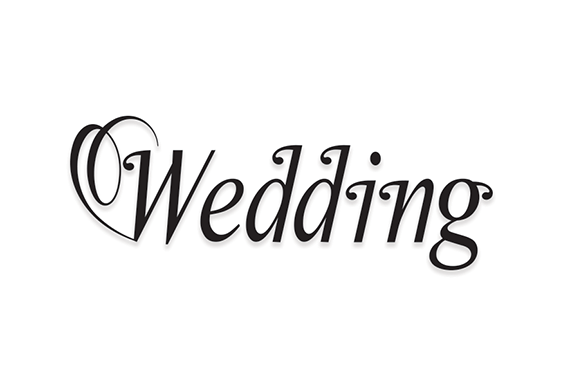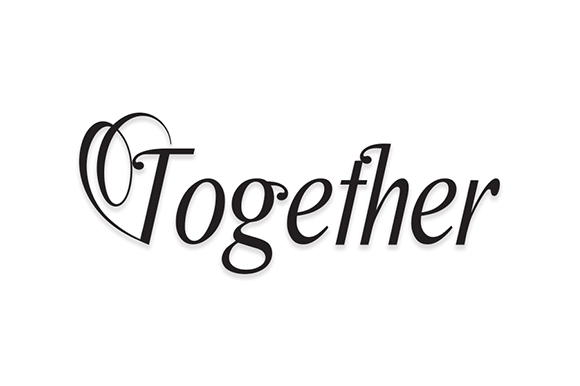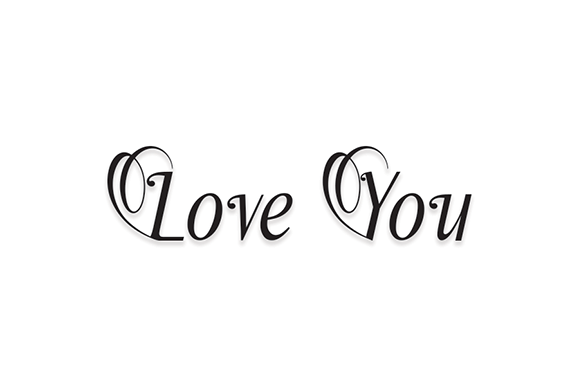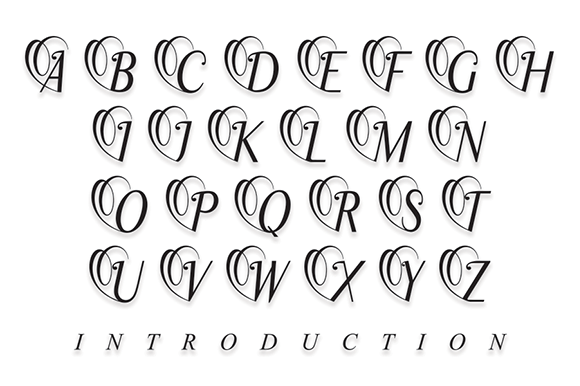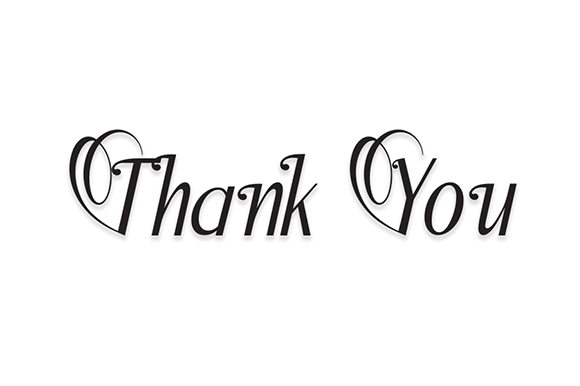
Introducing Balfa Hode Font: The Ultimate Choice for Romantic and Whimsical Designs
Are you a designer or crafter looking for a font that can add a touch of romance and elegance to your projects? Look no further than Balfa Hode Font! This original and cute handwritten font is perfect for creating stunning wedding invitations, stationery, branding, and more. With its gorgeous swashes and whimsical feel, Balfa Hode is sure to make your designs stand out from the crowd.
What Makes Balfa Hode Font So Special?
Balfa Hode Font is a unique and creative typeface that is designed to bring a touch of romance and sophistication to your designs. Here are just a few features that make it so special:
- Handwritten with love: Balfa Hode is a handwritten font that is crafted with love and care. Its unique and organic feel makes it perfect for designs that require a personal touch.
- Gorgeous swashes: This font features beautiful swashes that can be used to add a decorative touch to your designs. From wedding invitations to branding, these swashes are sure to make your projects look stunning.
- Perfect for romantic designs: Whether you’re creating wedding invitations, stationery, or branding for a romantic business, Balfa Hode is the perfect choice. Its whimsical feel and elegant swashes make it ideal for designs that require a touch of romance.
How to Use Balfa Hode Font in Your Designs
Balfa Hode Font is incredibly versatile and can be used in a variety of design projects. Here are just a few ideas to get you started:
- Wedding invitations: Create stunning wedding invitations that will leave a lasting impression on your guests. Use Balfa Hode to add a romantic touch to your designs.
- Stationery: From business cards to letterheads, Balfa Hode is perfect for creating elegant and sophisticated stationery.
- Branding: Use Balfa Hode to create a unique and memorable brand identity for your business. Its whimsical feel and elegant swashes make it perfect for businesses that require a touch of romance.
- DIY projects: Whether you’re creating handmade cards, gift tags, or other DIY projects, Balfa Hode is a great choice. Its unique and organic feel makes it perfect for crafts that require a personal touch.
Tips for Getting the Most Out of Balfa Hode Font
Here are a few tips for getting the most out of Balfa Hode Font:
- Experiment with swashes: Don’t be afraid to experiment with the swashes in Balfa Hode. They can be used to add a decorative touch to your designs and create a unique look.
- Mix and match: Try mixing and matching Balfa Hode with other fonts to create a unique and interesting look.
- Use it sparingly: While Balfa Hode is a beautiful font, it can be overwhelming if used too much. Use it sparingly to create a balanced design.
Balfa Hode Font is a unique and creative typeface that is perfect for designers and crafters who want to add a touch of romance and elegance to their projects. With its gorgeous swashes and whimsical feel, it’s ideal for wedding invitations, stationery, branding, and more. Whether you’re a professional designer or a DIY crafter, Balfa Hode is sure to become a favorite in your font collection.